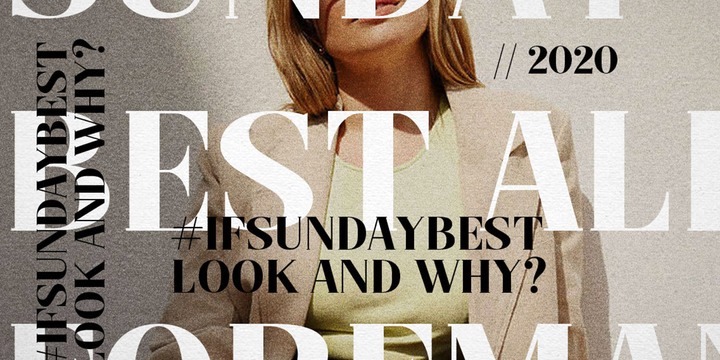
ShowUp Type Foundry [Aulia Rahman]
Or Aulya Rahman. Banda Aceh, Indonesia-based designer of the signage script typefaces Mekar Script (2016) and Nelda Script (2015). In 2016, he made the connected monoline script font Sakura, the logotype script The Angel (removed after a few days, but then reinstated), the script package Beauty Sunset, the handcrafted typeface Oliver, the poster typeface Lumberjack, the brush font Strength Script, and the connected signage typeface Florance Script.
In 2017, he designed Bagman (connected monoline script), The Moon (a free brush script), Alaska (a fat brush script), Maveric (a dry brush script) and Signature Script.
Typefaces from 2018: Margents (signage script), Specta Retro Script (2018, with Hendra Maulia).
Typefaces from 2019: Lumberjack, Oliver, Matao Serif (a decorative didone typeface done with Hendra Maulia), The Night (curly script).
Typefaces from 2020: Monesta (an 18-style sharp-edged display serif; +a variable style), Nagaiya (a 15-style display sans (+a variable cut) characterized by sharp spurs; by Aulia Rahman and Hendra Maulia), Rustler Barter (a display font done with Hendra Maulia), Neue Metana (a wide display sans by Aulia Rahman and Hendra Maulia), Masculine Script.
Typefaces from 2021: Markisa (an 18-style humanist sans and a variable font), Magtis (a 10-style retro fashion mag serif by Aulia Rahman and Hendra Maulia), Magis (a 21-style display sans), Cigra (a decorative serif by Aulia Rahman and Hendra Maulia).
Typefaces from 2022: Garcia (a Picasso-esque display typeface by Aulia Rahman and Hendra Maulia), Consta (an 8-style display serif by Aulia Rahman and Hendra Maulia).